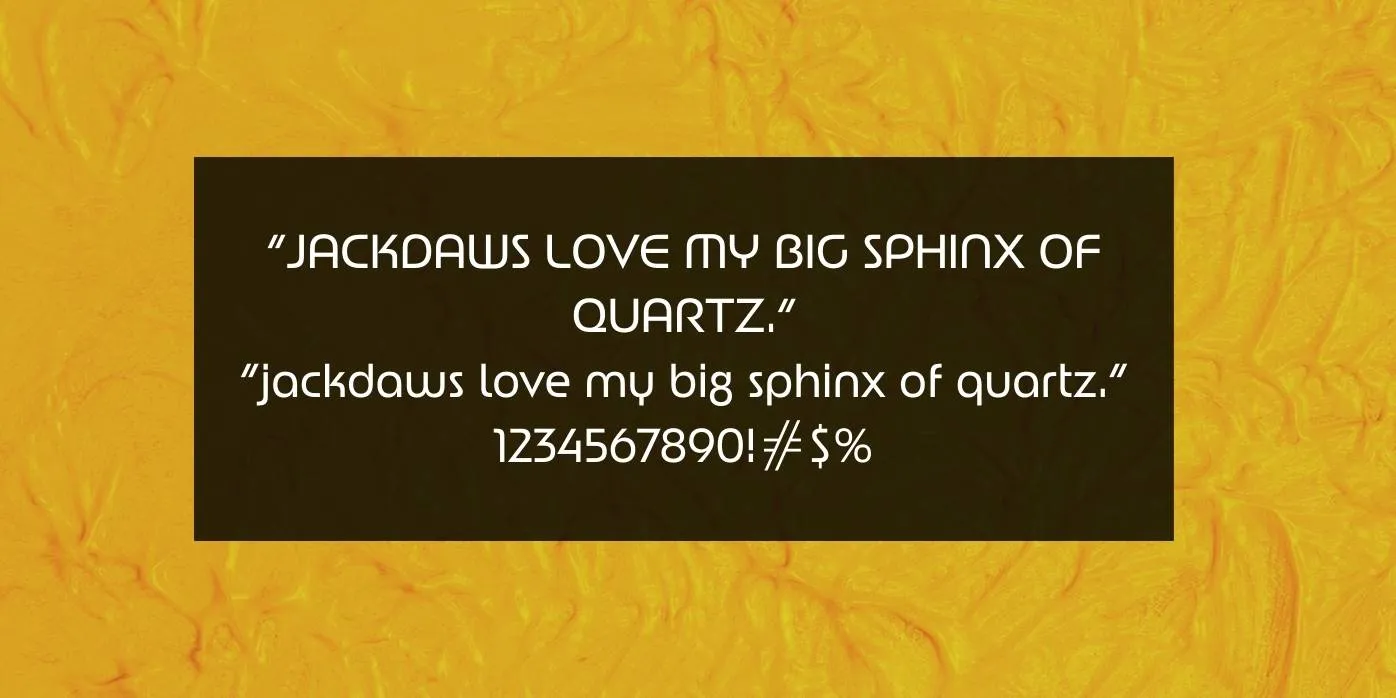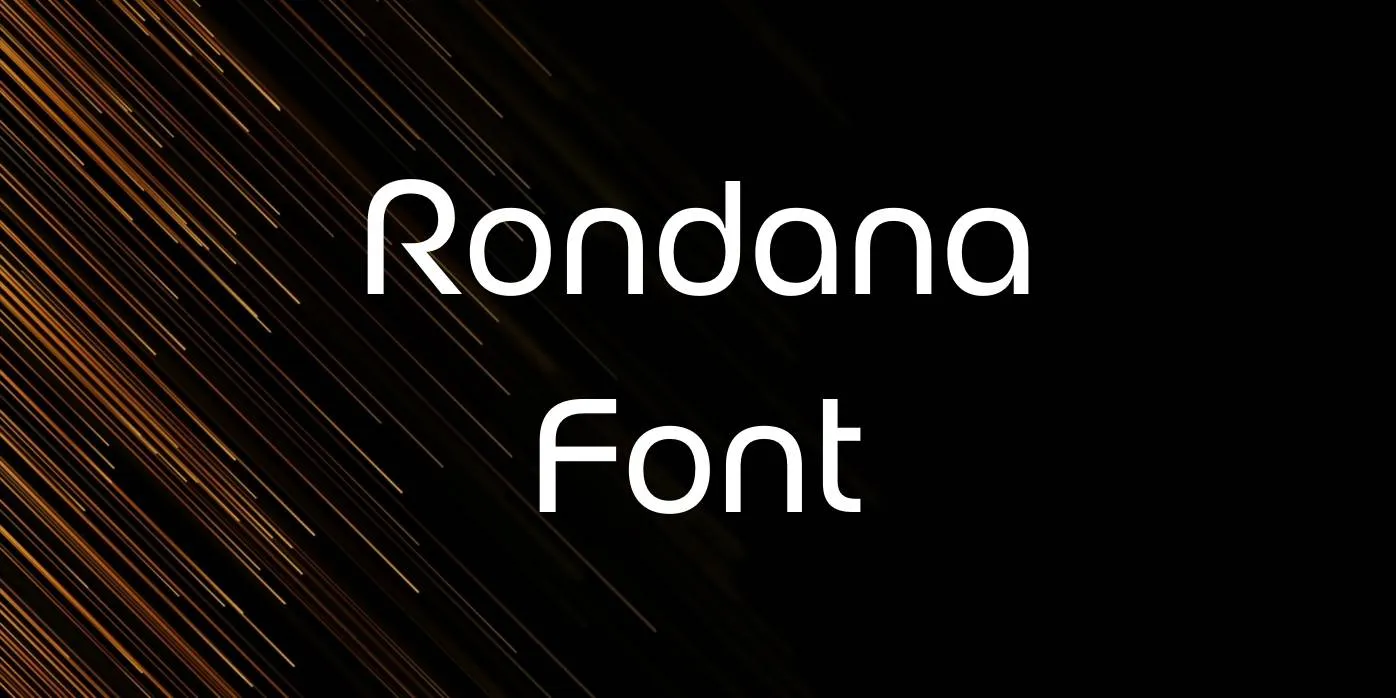
Rondana Font
Here, we present the Rondana font which belongs to the sans serif font family. This typeface was designed by Gabriel Martinez Meave a famous font designer. It is well specified for the CSS Family. You can use it according to your desire.
This typeface has more classic features as compared to others. This means that it looks modern and stylish. The characters of this font are very thin and tall. They are also widely spaced out, which makes the text easy to read.